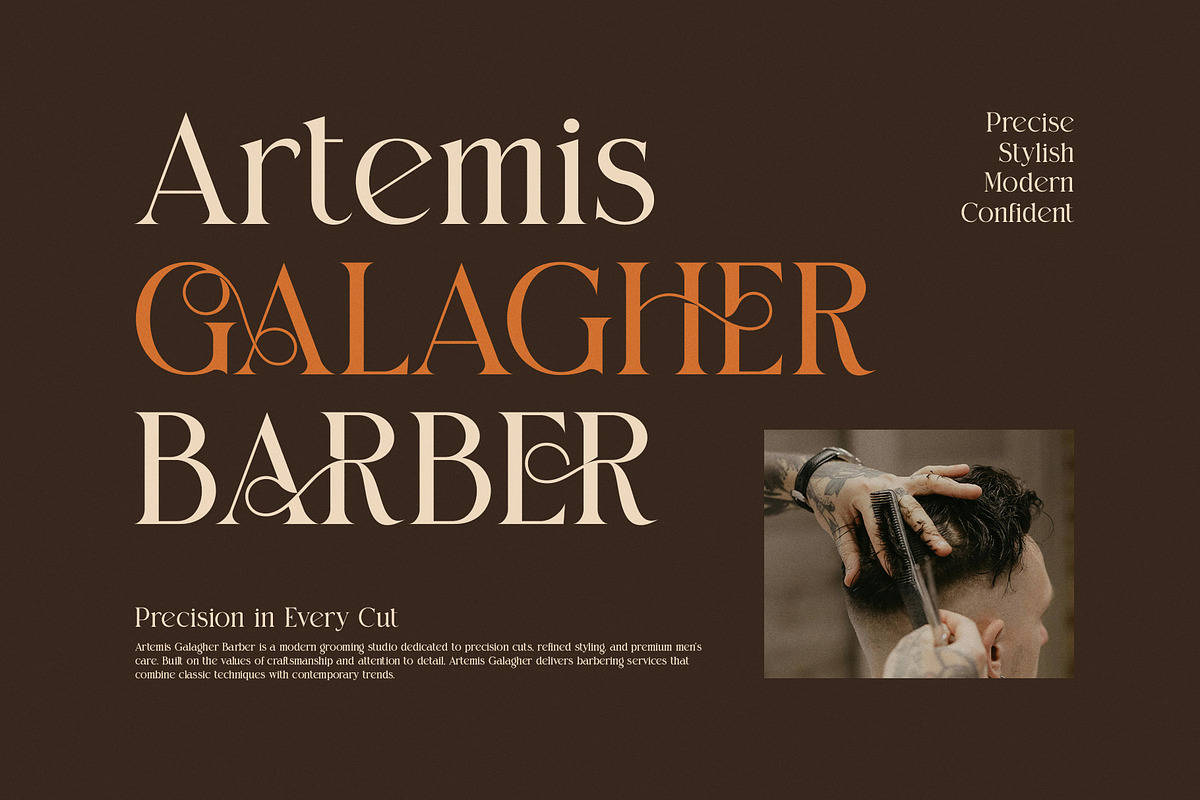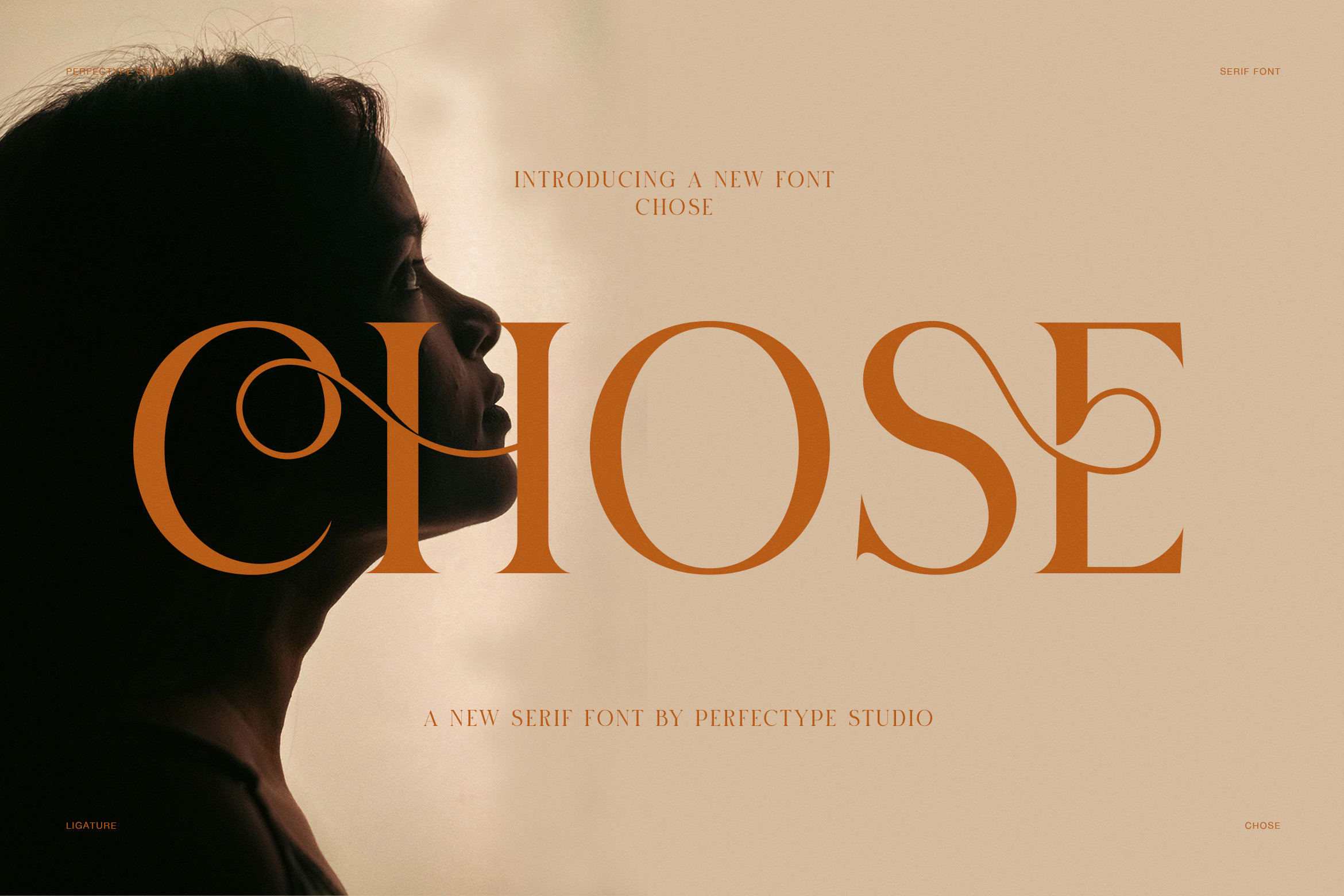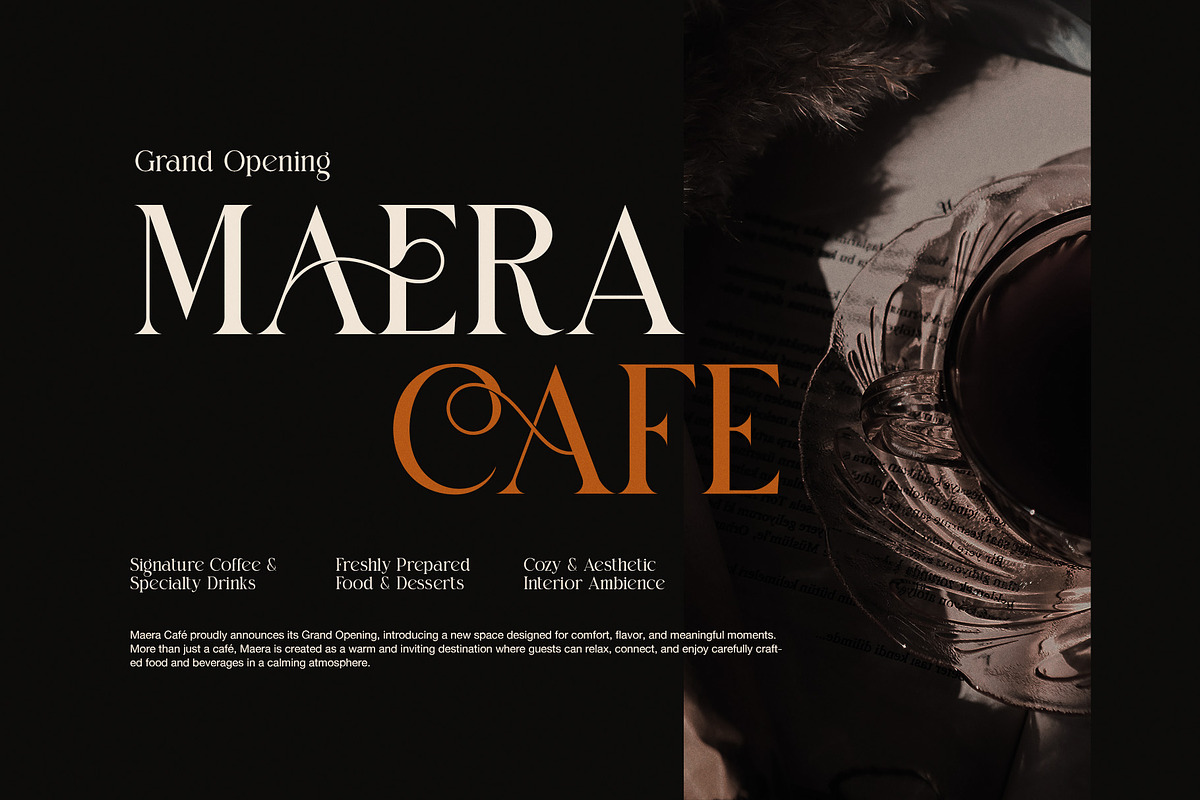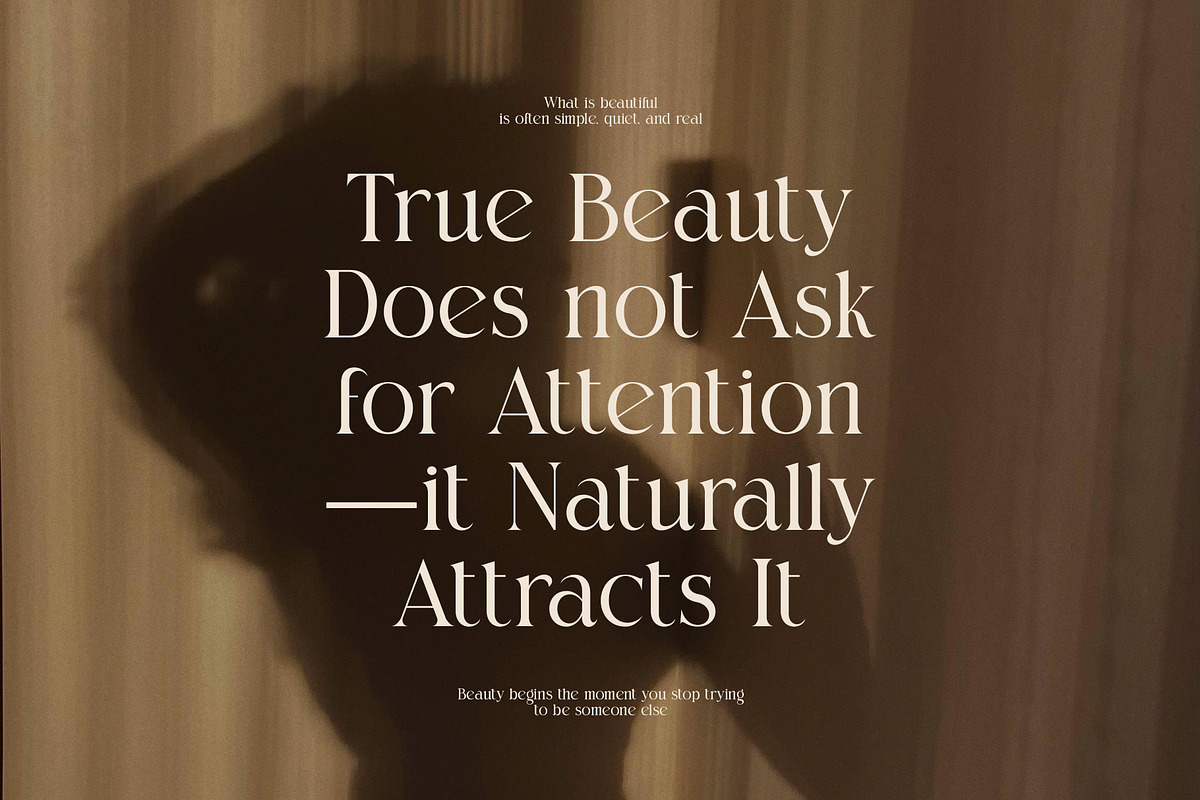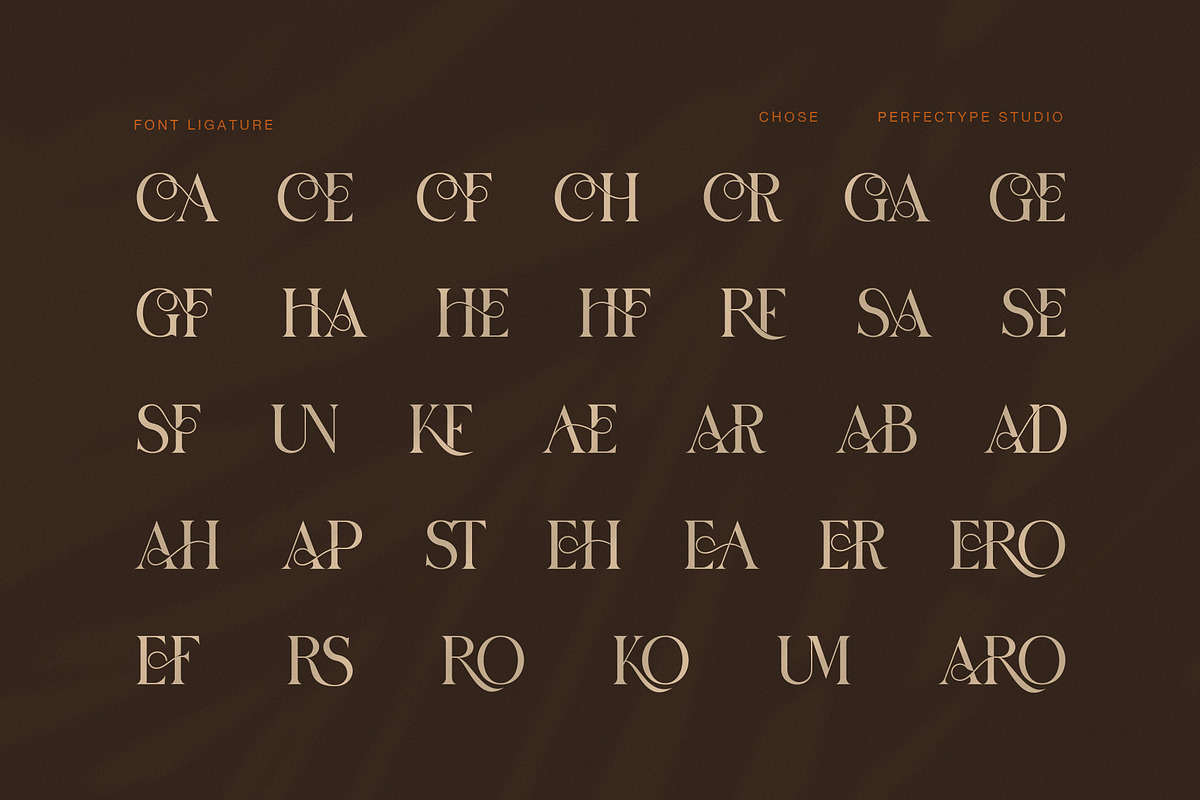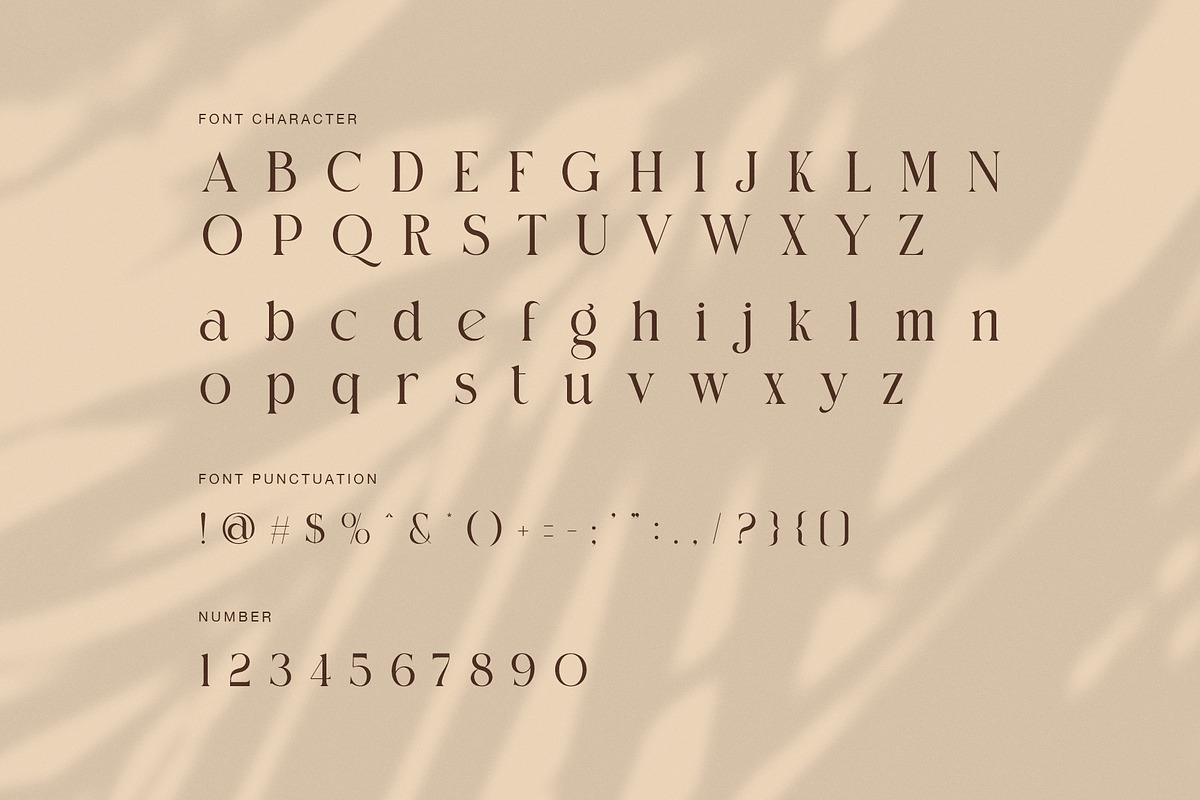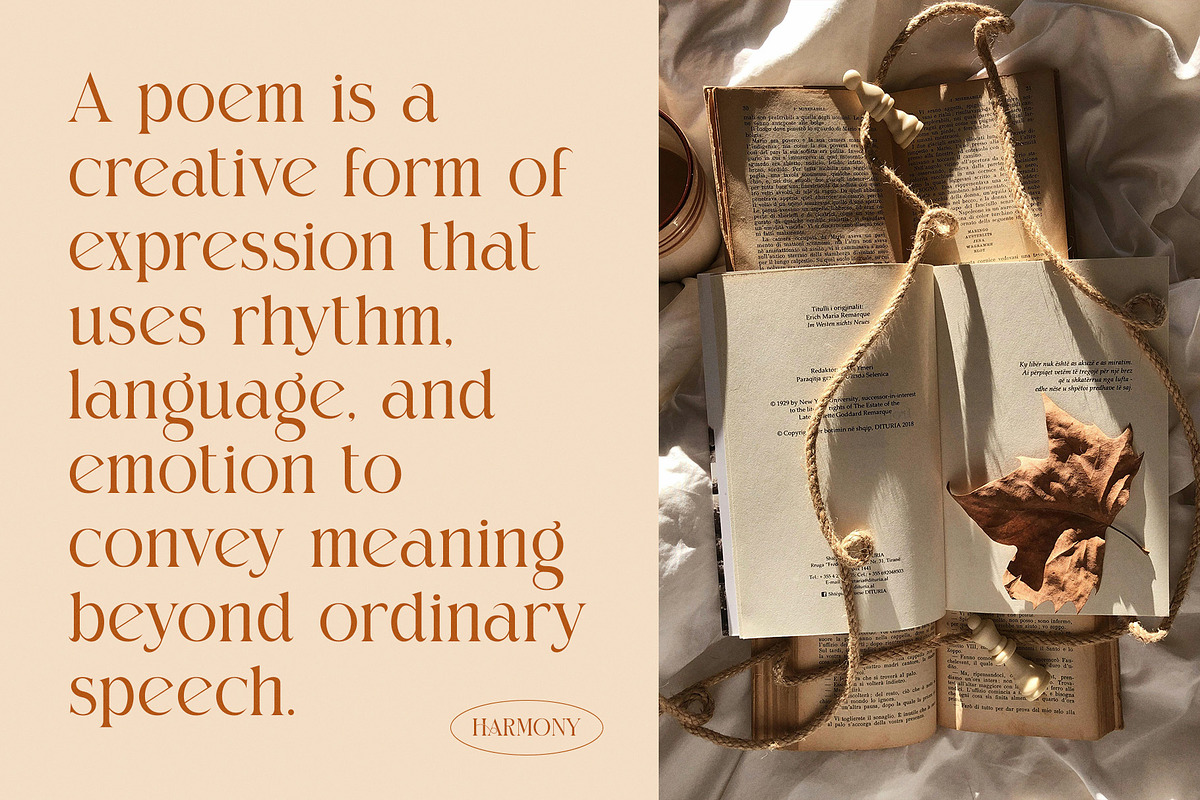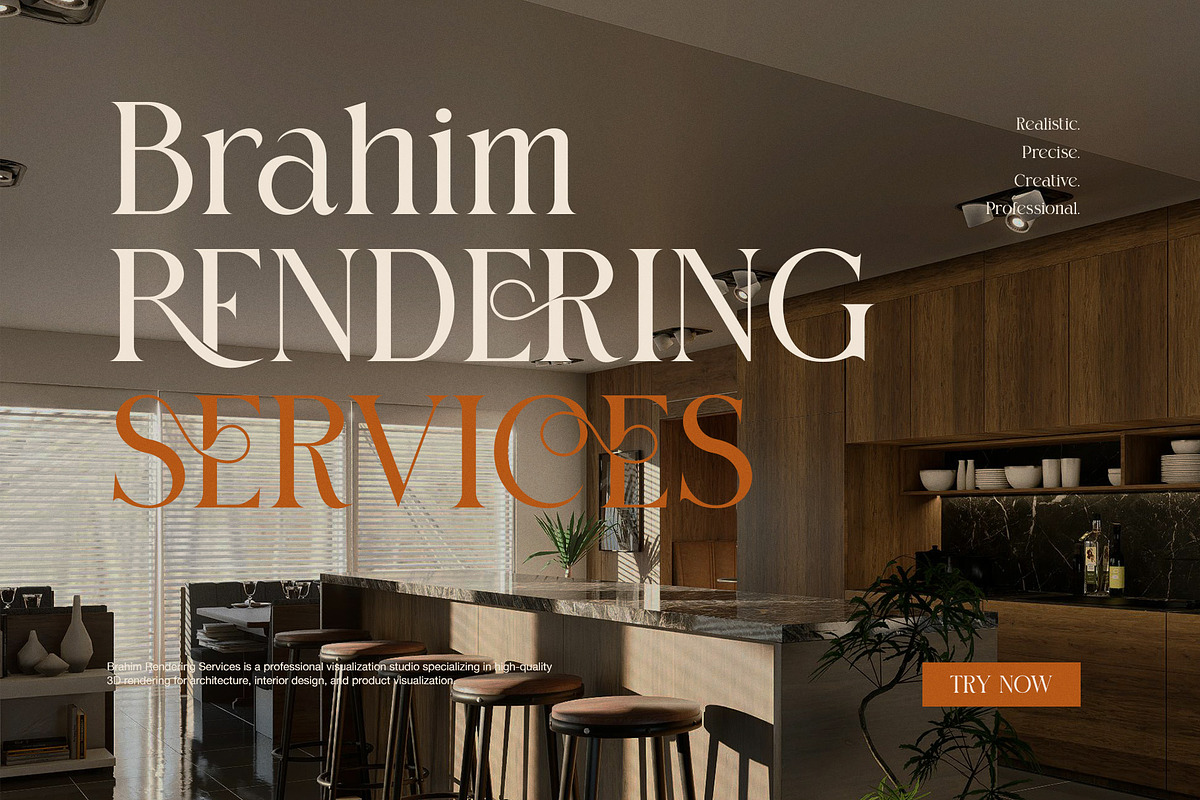
Chose Elegant Ligature Serif Font
Chose is an Elegant Ligature Serif Font designed for creatives who appreciate timeless beauty, refined typography, and modern luxury. Inspired by high-end fashion editorials and premium branding, this typeface blends graceful serif letterforms with artistic ligatures that create sophisticated typography without sacrificing readability. As a result, every headline, logo, and brand identity feels polished, distinctive, and memorable.
The font features balanced proportions, smooth curves, and delicate high-contrast strokes that give each character a graceful appearance. In addition, the decorative ligatures introduce subtle flowing connections that add personality while maintaining a clean and professional structure. Because of this combination, Chose delivers elegance in both minimal and expressive layouts.
Whether you are creating a luxury fashion logo, editorial magazine, café branding, interior design presentation, or premium packaging, Chose adapts beautifully across many creative projects. Furthermore, the refined serif construction helps communicate trust, sophistication, and exclusivity, making it suitable for modern brands that want a lasting visual identity.
Unlike ordinary serif fonts, Chose offers decorative details that feel intentional rather than excessive. Consequently, every word gains visual interest while remaining highly legible. The stylish ligatures also allow designers to create unique typography without additional customization, saving valuable design time while achieving a handcrafted appearance.
Luxury branding
Editorial design
Fashion magazines
Logo design
Boutique brands
Beauty products
Cosmetic packaging
Café and restaurant branding
Interior design studios
Architecture presentations
Wedding invitations
Lifestyle blogs
Premium advertising
Product packaging
Moreover, Chose includes carefully crafted ligatures that elevate simple typography into elegant visual compositions. Therefore, it works exceptionally well for display headlines, premium logos, marketing campaigns, and printed materials. Its balanced letterforms remain attractive at both large and medium sizes, giving designers complete creative flexibility.
If you need typography that combines classic serif elegance with modern branding trends, Chose is an excellent choice. From luxury identities and editorial layouts to sophisticated packaging and stylish digital content, this elegant ligature serif font helps every project feel refined, confident, and unforgettable. Every character has been thoughtfully designed to deliver harmony, beauty, and versatility, making Chose a valuable addition to any professional font collection.